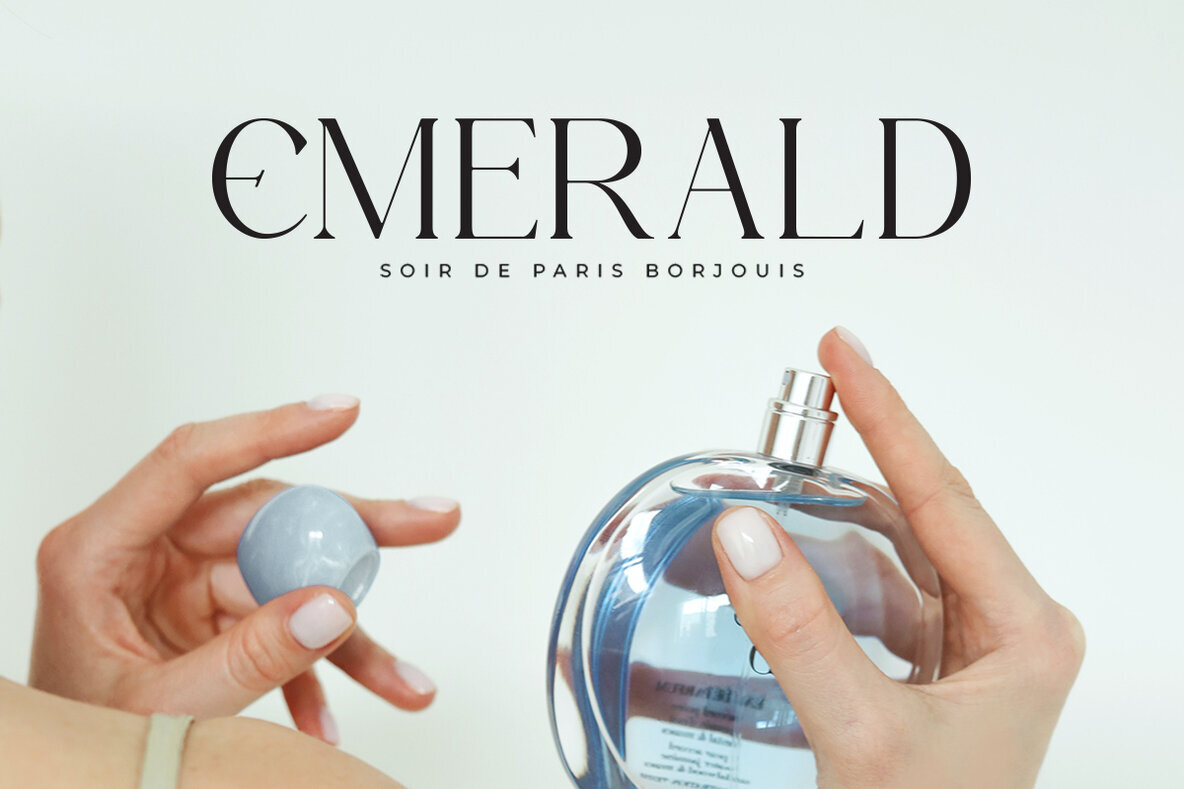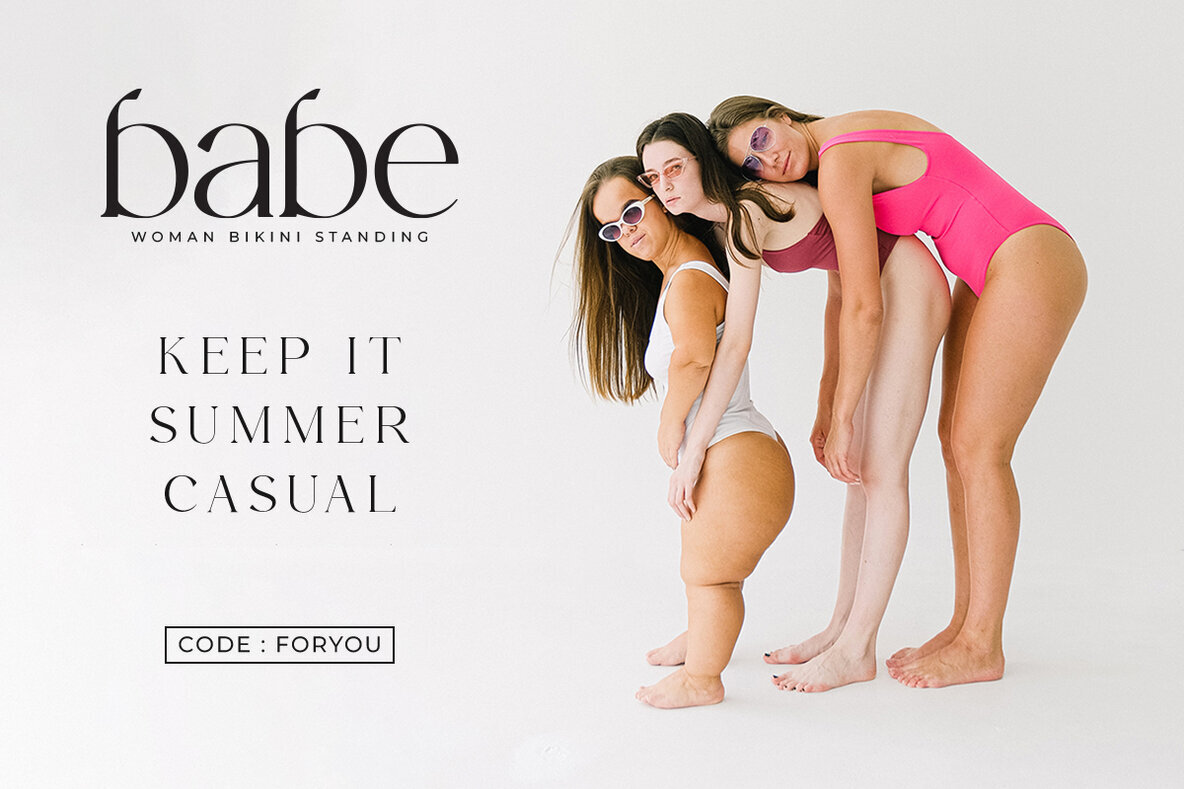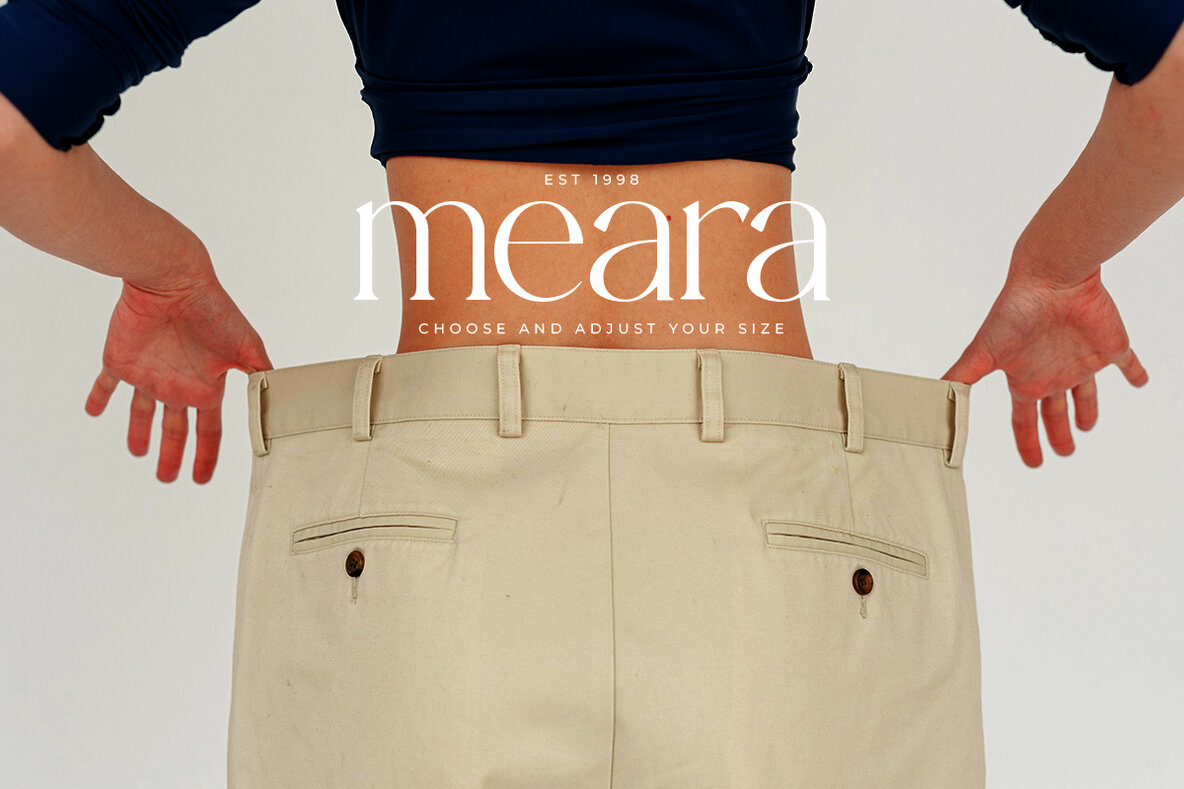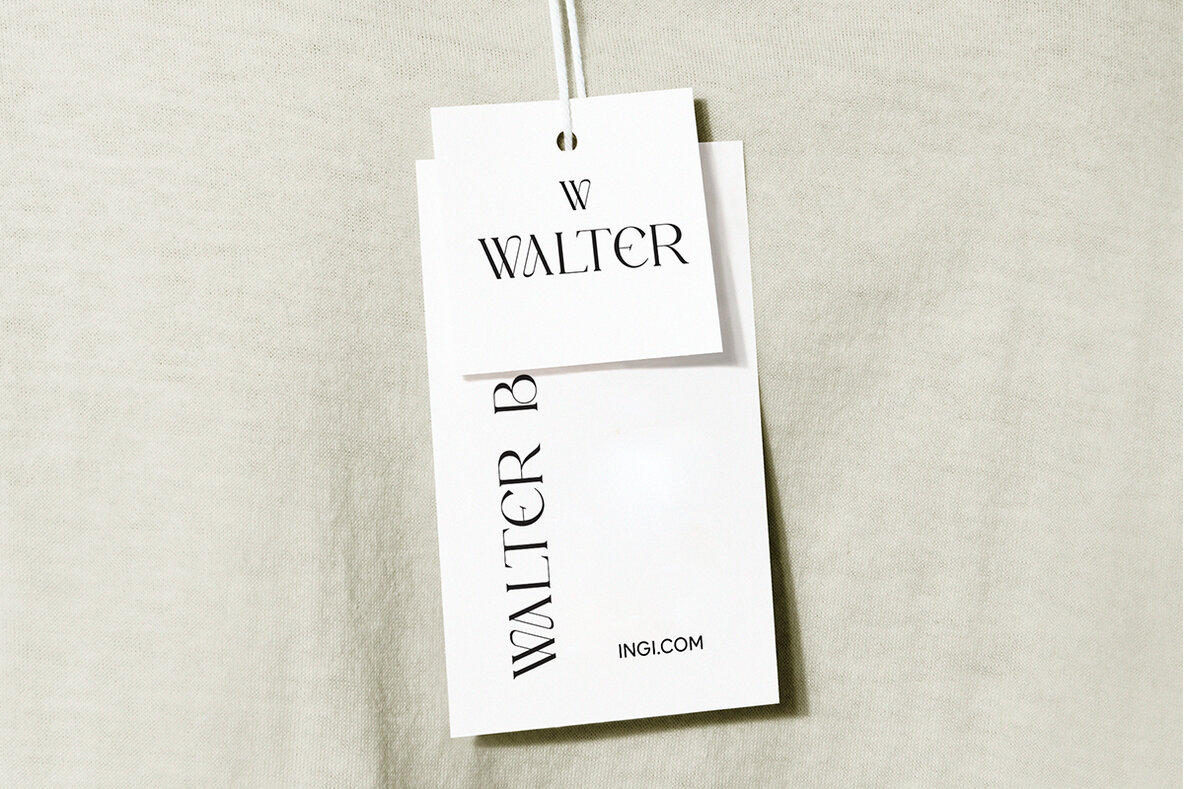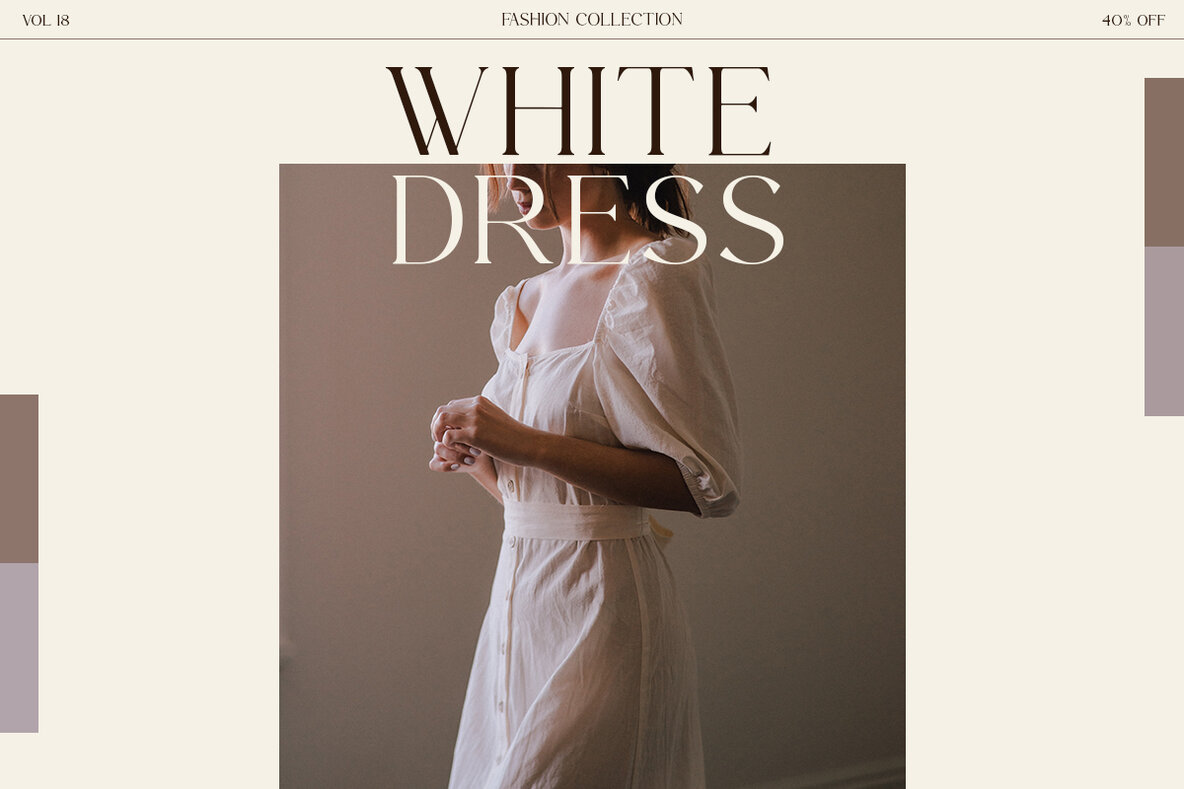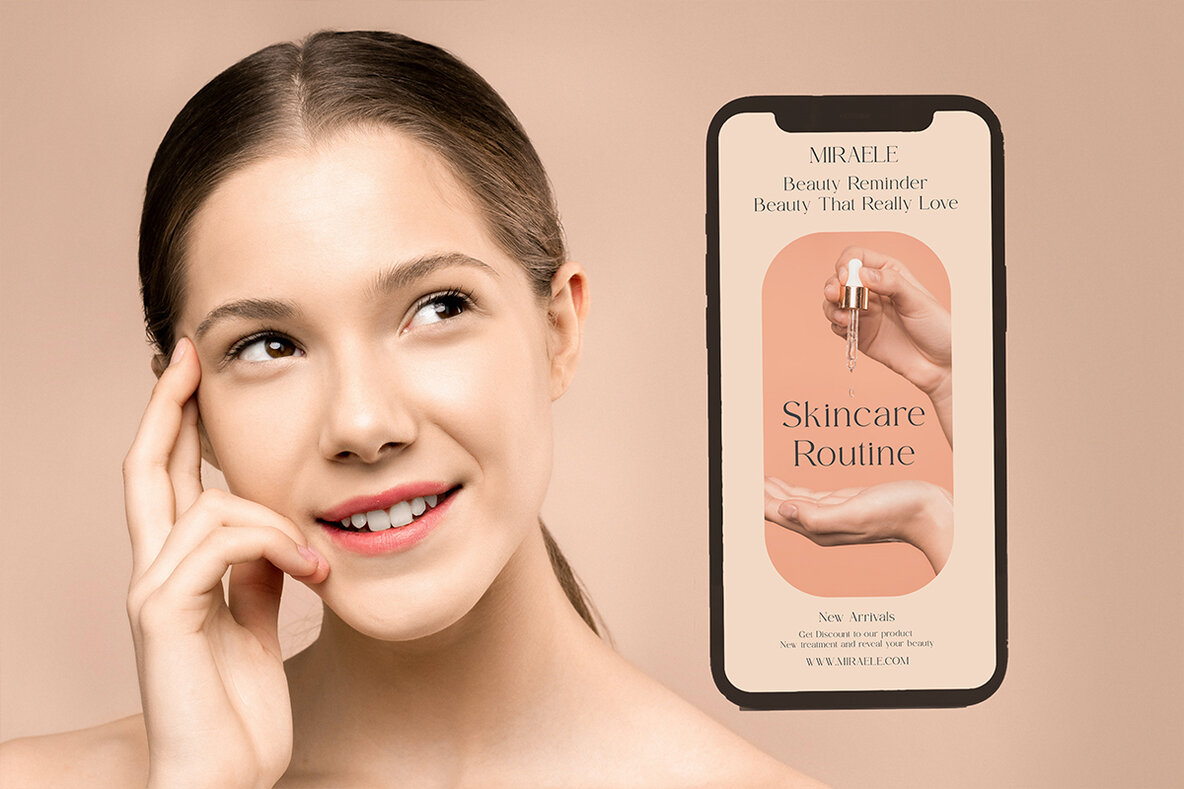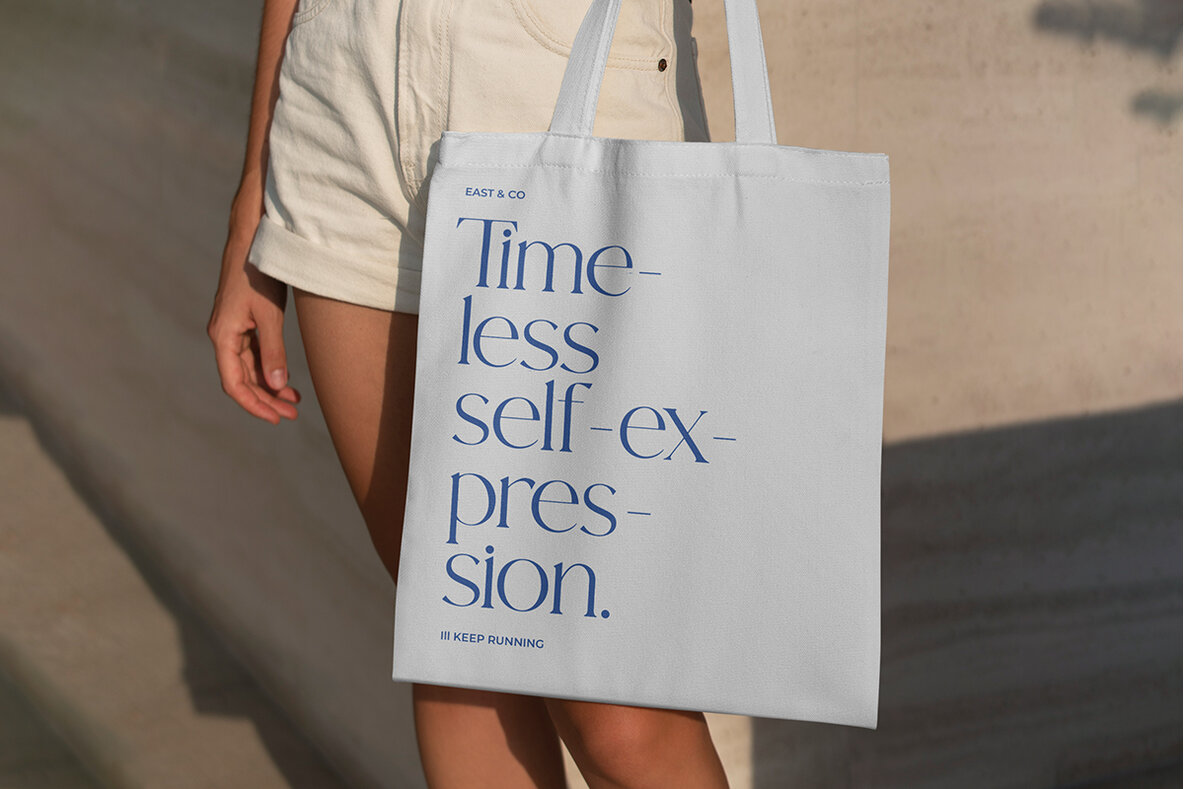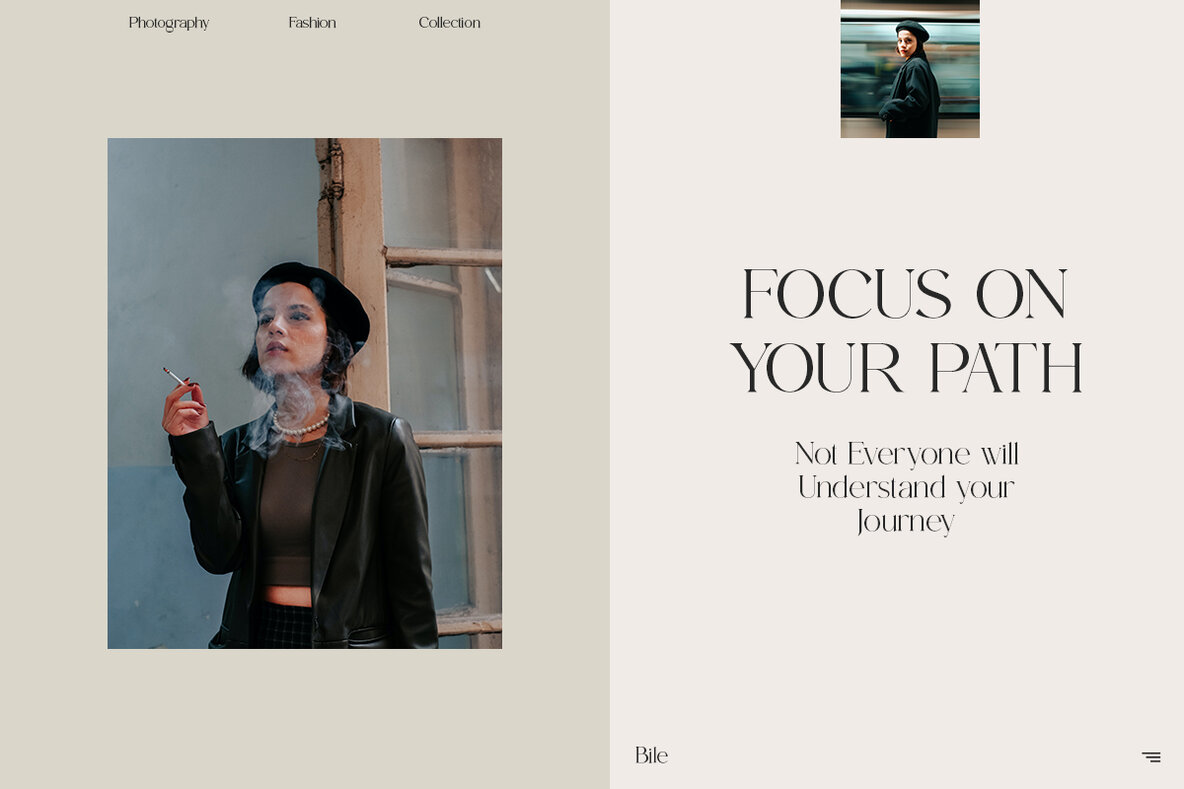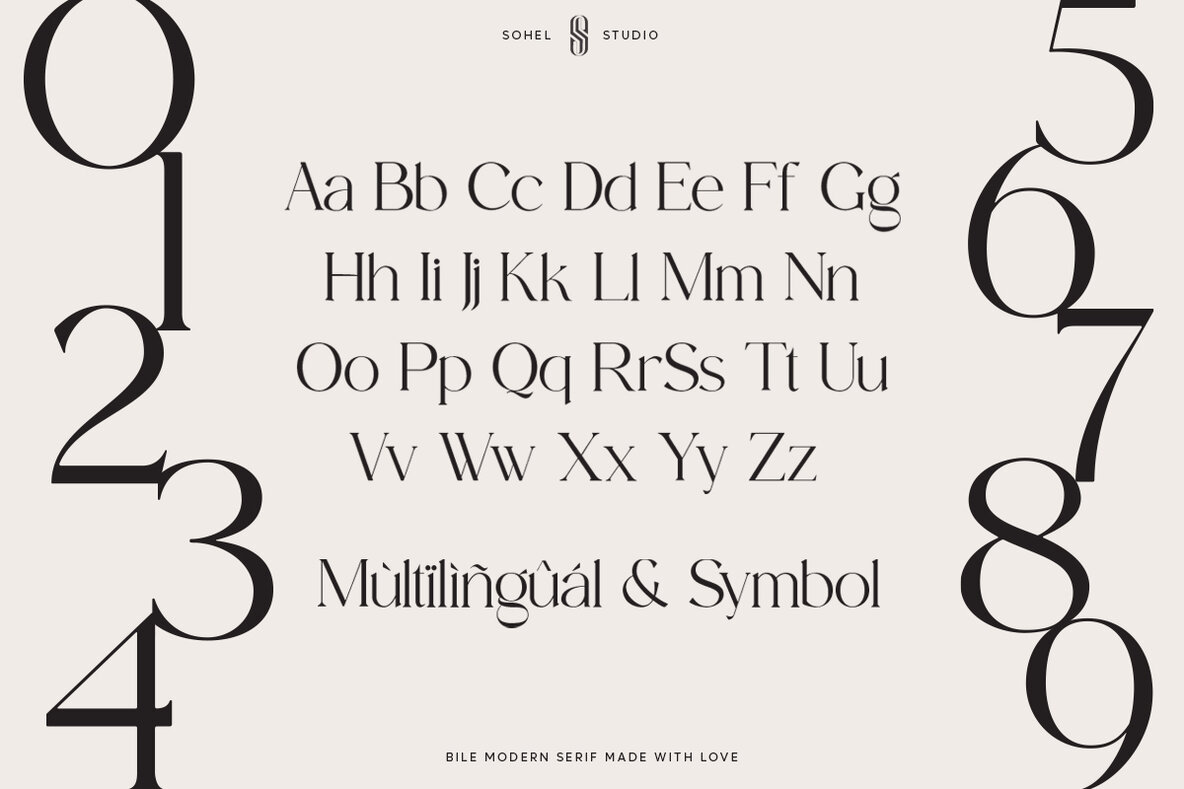
Bile Font
Bile Regular
Bile is a Classy serif typeface Unique alternate , multilingual support with perfect kerning. This typeface is perfect for an elegant & luxury logo , classy editorial design, women's magazine, fashion brand , cosmetic brand, fashion promotion , modern advertising design, invitation card, art quote, home decoration , book/cover titles, special events, and much more. This elegant font needs to be in your collection and is perfect for your next luxury design project. Bile Features: • Uppercase & Lowercase • Alternates & Ligatures • Numerals & Punctuation • Accented characters • Format File: TTF,OTF • Multilingual Support • Unicode PUA Encoded